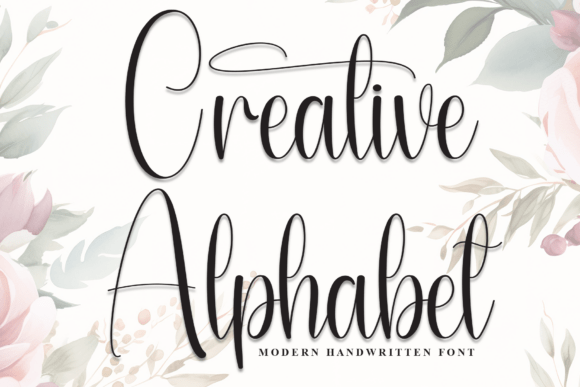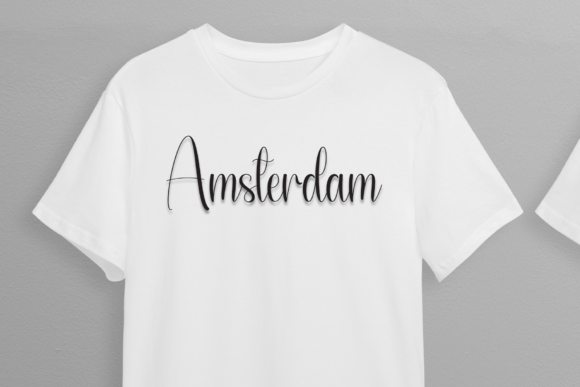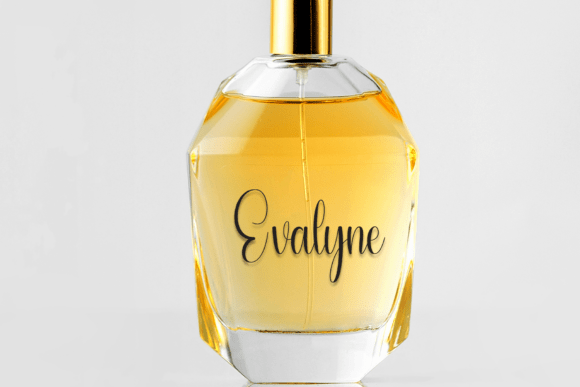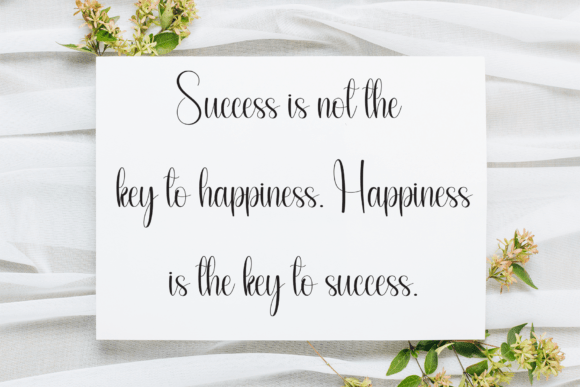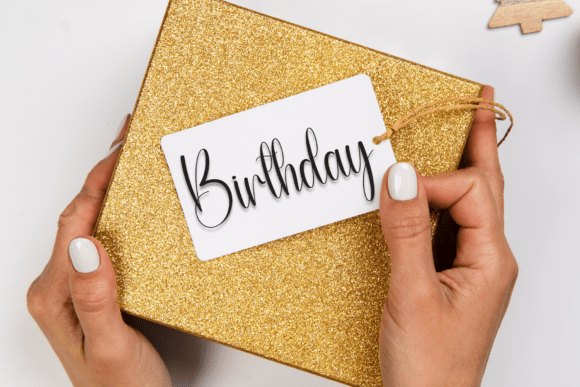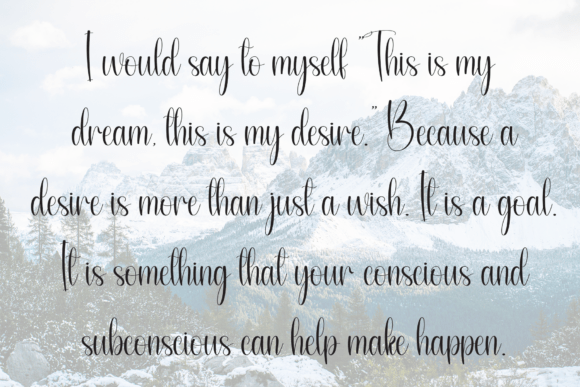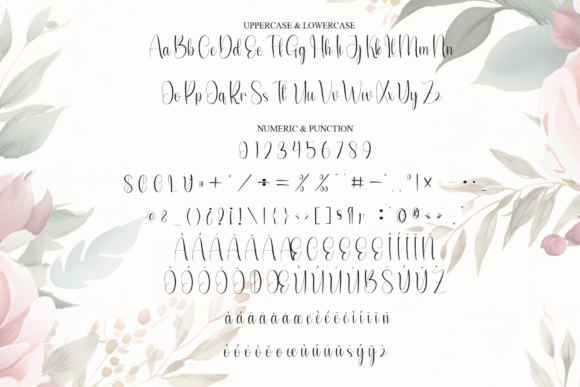
Unlocking the Magic of Handwritten Design
Do you remember the excitement of crafting your first handmade card or creating a custom wedding invitation? The thrill of bringing a personal touch to a special moment is something that never gets old. For designers, the challenge of infusing personality into a project is a constant source of inspiration.
That’s where the Creative Alphabet Font comes in – a beautiful, handwritten display font that’s perfect for adding a dash of whimsy and charm to your designs. Whether you’re working on a wedding invitation, a birthday card, or any other creative project, this font is sure to bring a smile to your clients’ faces. Its unique blend of simplicity and elegance makes it a valuable addition to any designer’s toolkit.
With the Creative Alphabet Font, you can take your designs to the next level and make a lasting impression on your audience. Its versatility and playfulness make it an ideal choice for any creative adventure.
Creative Alphabet Font Key Features
- Unique Characteristic: The font features a unique, hand-drawn design with intricate details and creative flair, making it perfect for designers and artists seeking a distinctive look.
- Alphabet Coverage: The font includes a complete alphabet, with uppercase and lowercase letters, as well as numbers and punctuation marks.
- Font Style: The font has a playful, cursive style with a touch of whimsy, making it ideal for use in titles, headings, and other display text.
- Font Weight: The font comes in a single weight, but its unique design makes it suitable for use in a variety of contexts, from formal to informal.
Designer Review: Creative Alphabet Font
Overall, I think the Creative Alphabet Font is a solid choice for designers looking for a unique and playful font. Here’s what works well:
- ✨ The font’s versatility is one of its strongest features. It can be used for a wide range of projects, from children’s books to advertisements.
- ✨ The font’s customization options are also a major plus. You can adjust the size, color, and even add custom animations to make it truly stand out.
- ✨ The font’s aesthetic is fresh and modern, making it perfect for designers who want to add a touch of creativity to their work.
- ⚠️ The font can be overwhelming if used too extensively. It’s best to use it in moderation to avoid visual fatigue.
- ⚠️ The font may not be suitable for formal or professional projects, as it can come across as too playful or immature.
In conclusion, the Creative Alphabet Font is a great addition to any designer’s toolkit. While it has its limitations, its versatility and customization options make it a valuable resource for creative projects. Just be sure to use it thoughtfully and in moderation to get the best results.
For the best results, use the Creative Alphabet Font in titles, headings, and other prominent text elements.
Experiment with different font sizes and colors to create visually appealing effects.
Use the font to add a playful touch to children’s books, party invitations, and other creative projects.